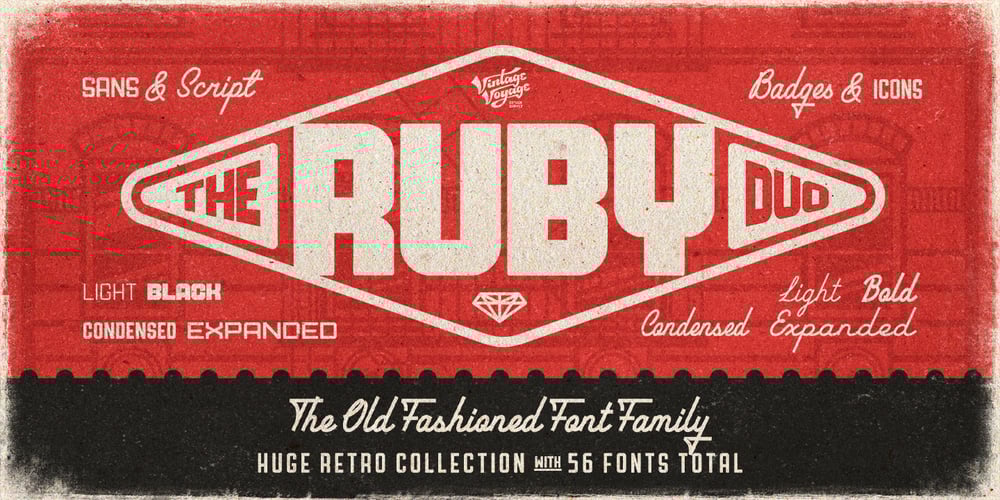
The Ruby
The Ruby font
The Ruby Font Family was designed by Pavel Korzhenko and published by Vintage Voyage Design. The Ruby contains 4 styles and family package options. The Ruby Duo – a retro inspired font duo with a wide range of sans and script styles. Rugged and simple sans with a cool pair of mono line script. The main thing is the possibility of various combinations of using – from Condensed to Extra Expanded and from Light to Black. You will definitely find the best way to use in your projects with more than 50 styles. The sans has underline small caps alternates to use it with conjunctions. The script also has some alternates to change the script mood.Also, you will find a five graphic fonts with 130 elements total! A lot of vintage badge shapes and more than 100 vector vintage mood icons to use it in your badges or logos.PDF graphic navigation